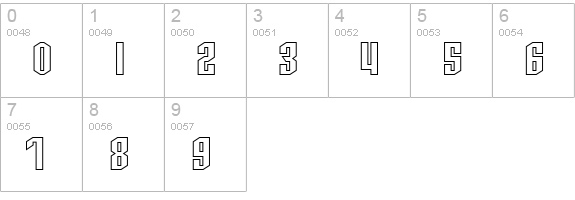
SF Archery Black SC Outline Font Details
SF Archery Black SC Outline is a maximum-weight, dramatic variant in the SF typeface family \xE2\x80\x94 well suited to maximum-impact headlines, posters, and packaging.
SF Archery Black SC Outline is a stunning display font that combines elegance with a touch of boldness. Its clean and sharp outlines make it perfect for any project that requires a modern and eye-catching aesthetic. This font is versatile and can be used for a wide range of purposes, including logos, headlines, posters, and more. Its unique design is sure to capture the attention of viewers and leave a lasting impression. SF Archery Black SC Outline is not only visually appealing but also highly functional. Its legibility ensures that your message is delivered clearly and effectively. Whether you are designing for print or digital media, this font will enhance your work and add a professional touch. The best part is that SF Archery Black SC Outline is available for free download at FontsMarket.com. You can easily access this font and start using it in your projects without any hassle. So why wait? Get your hands on this amazing font today and take your designs to the next level. Download SF Archery Black SC Outline for free at FontsMarket.com and start creating stunning visuals that will leave a lasting impression.